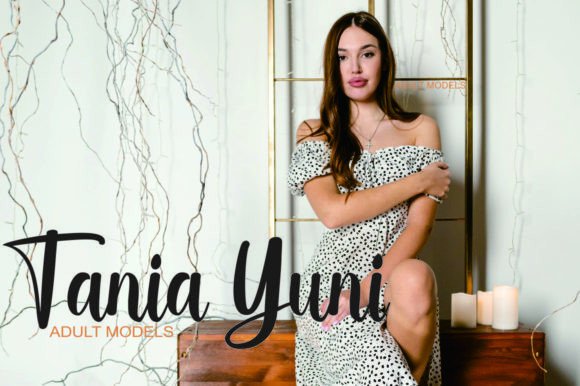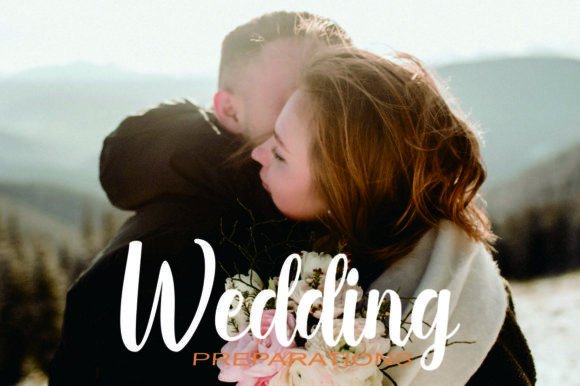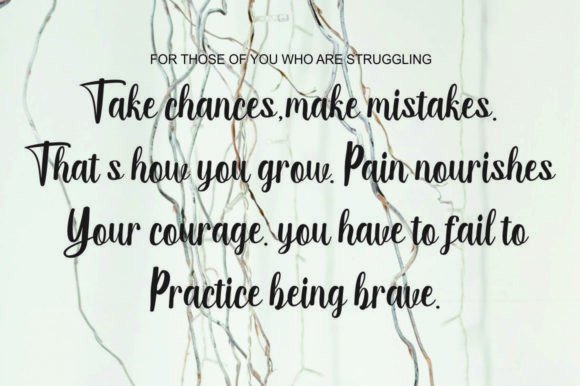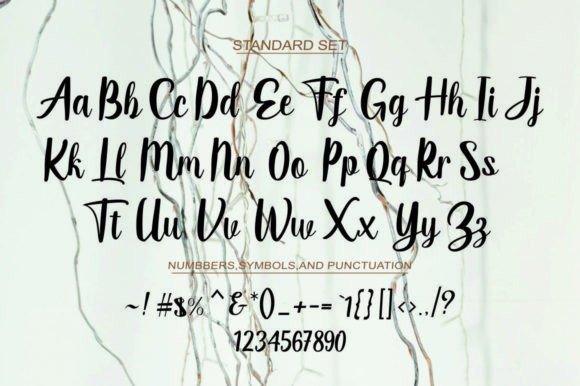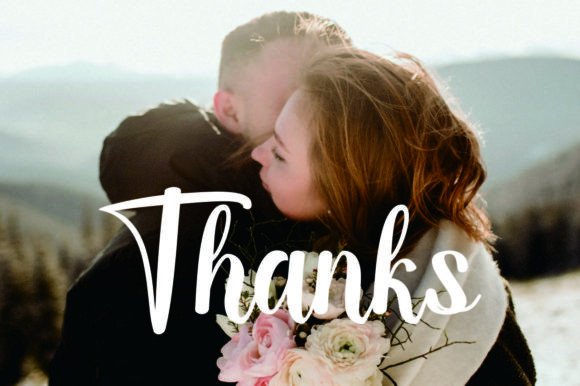
Introduction to Polo Land Font
Polo Land is soft and sweet calligraphy typeface, with characters that dance along the baseline.
It has a casual and elegant touch Can be used for various purposes such as logos, wedding invitations, headings, t-shirt, labels, posters, badges etc.